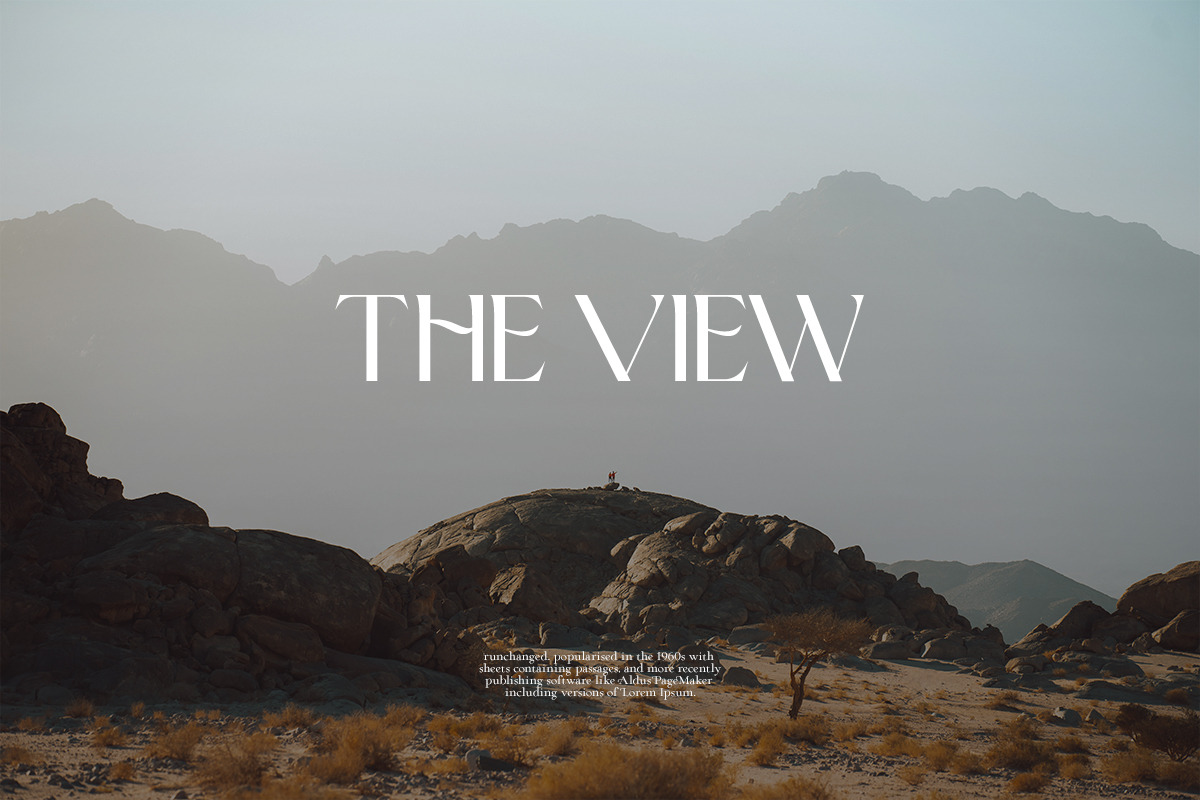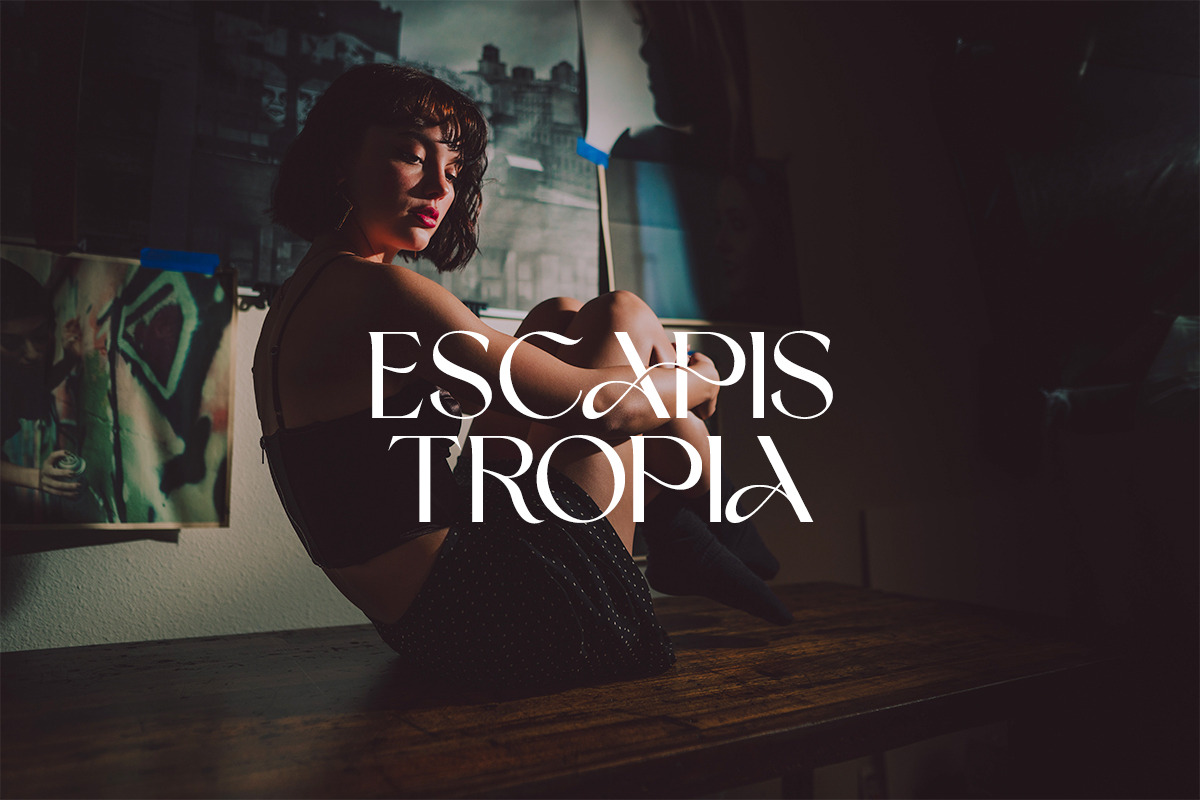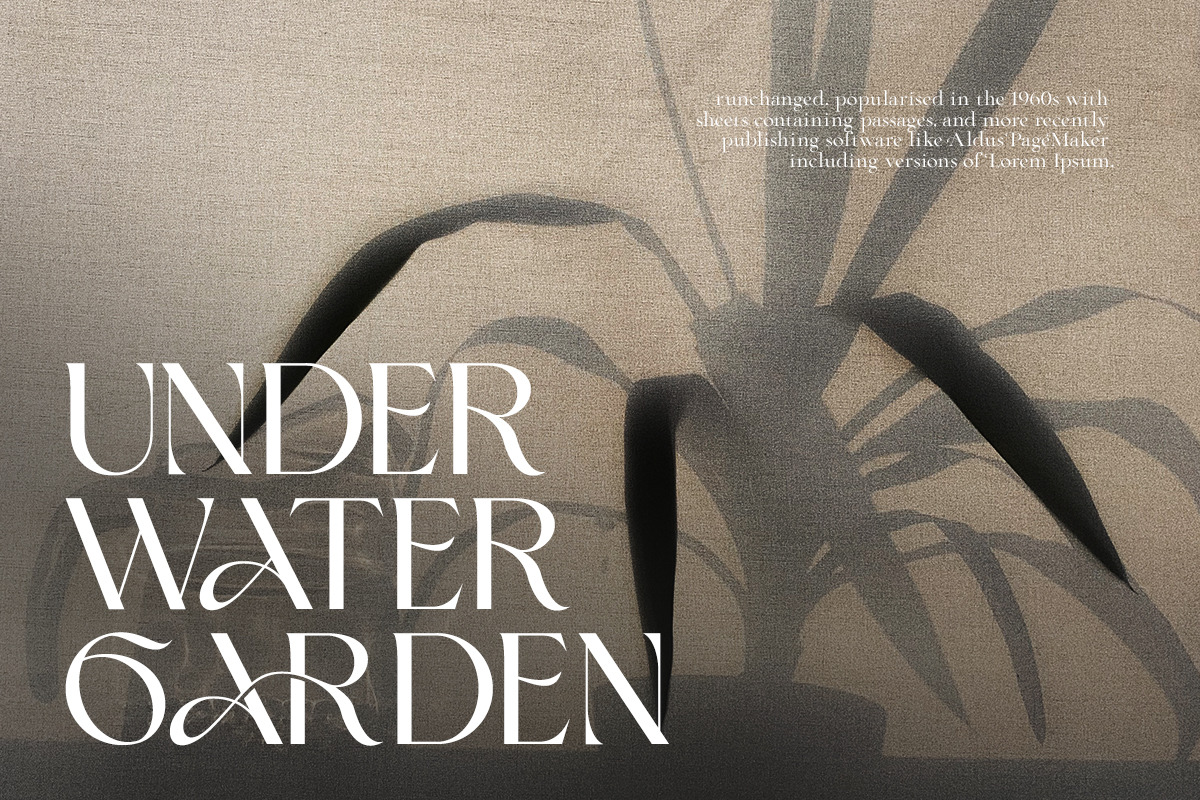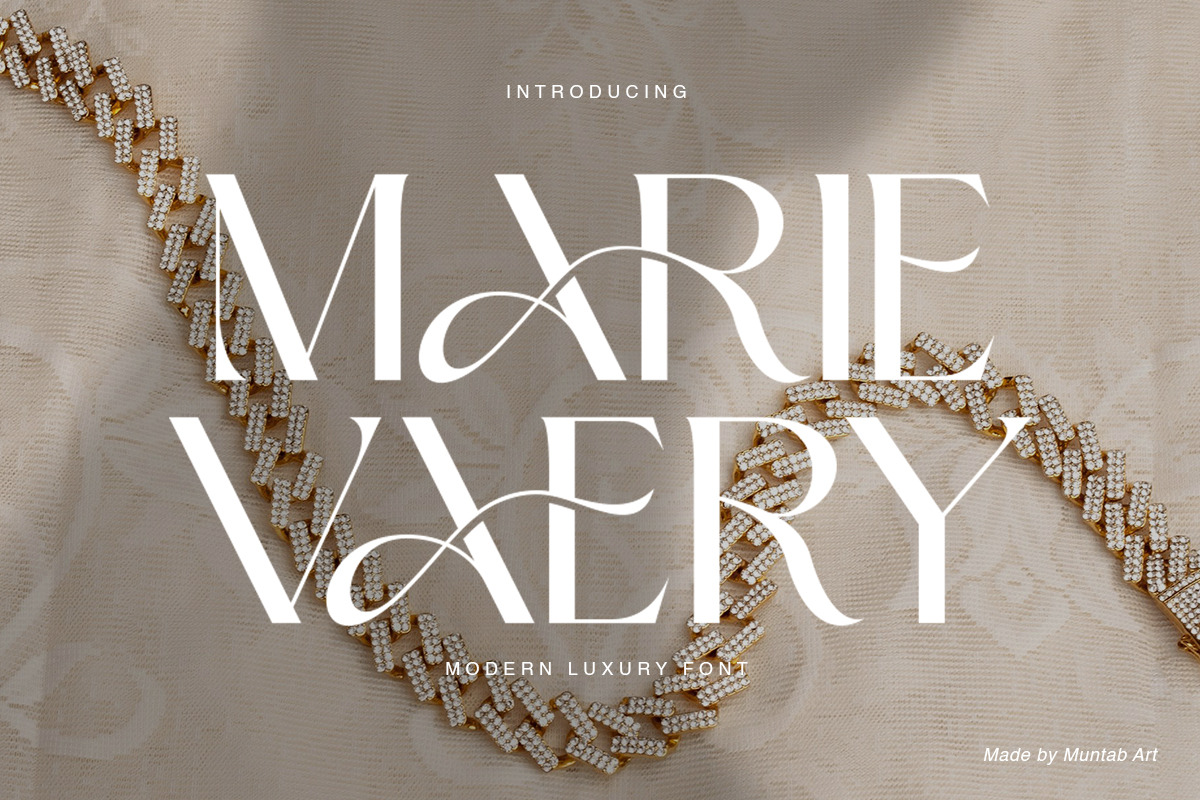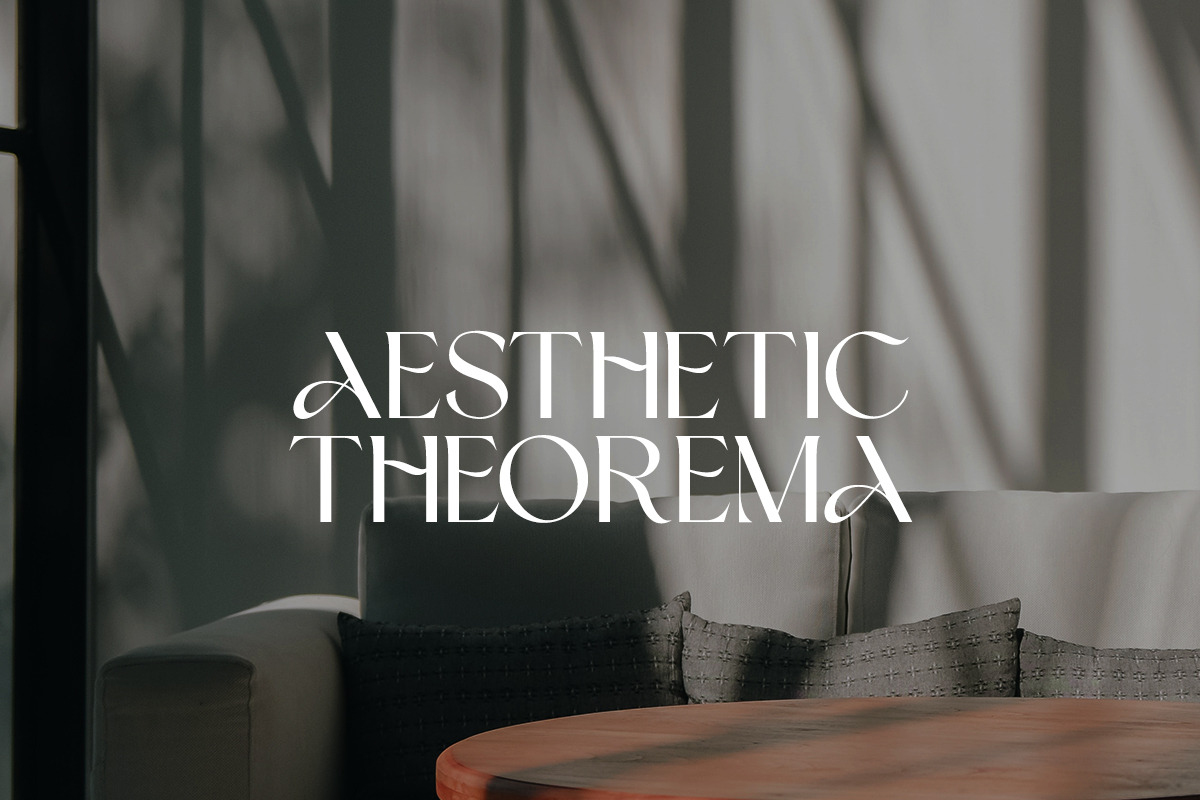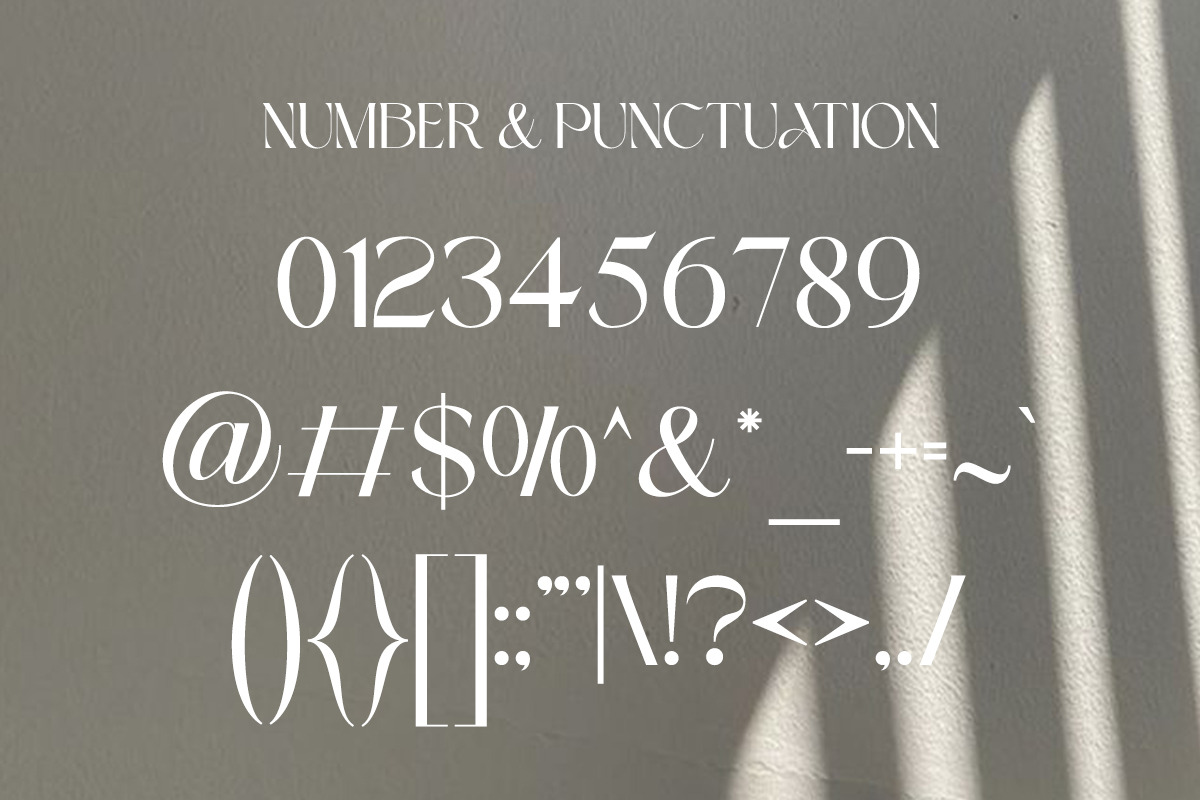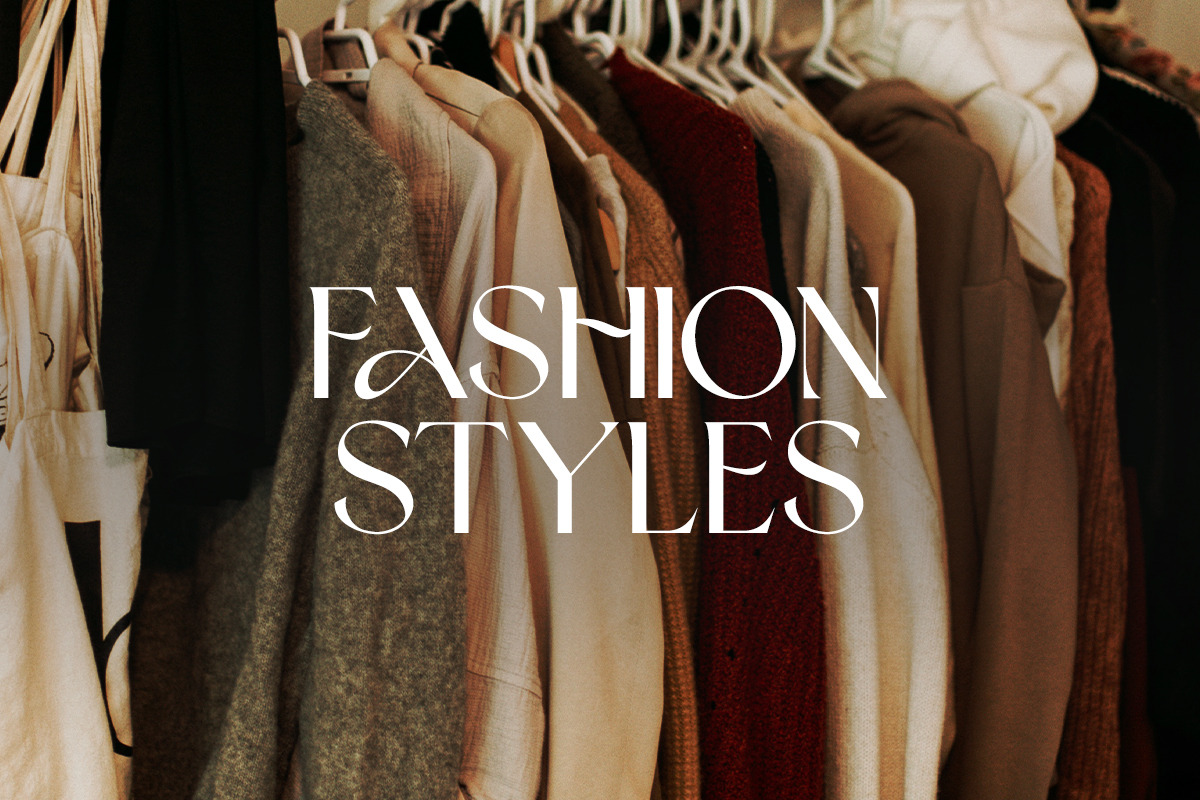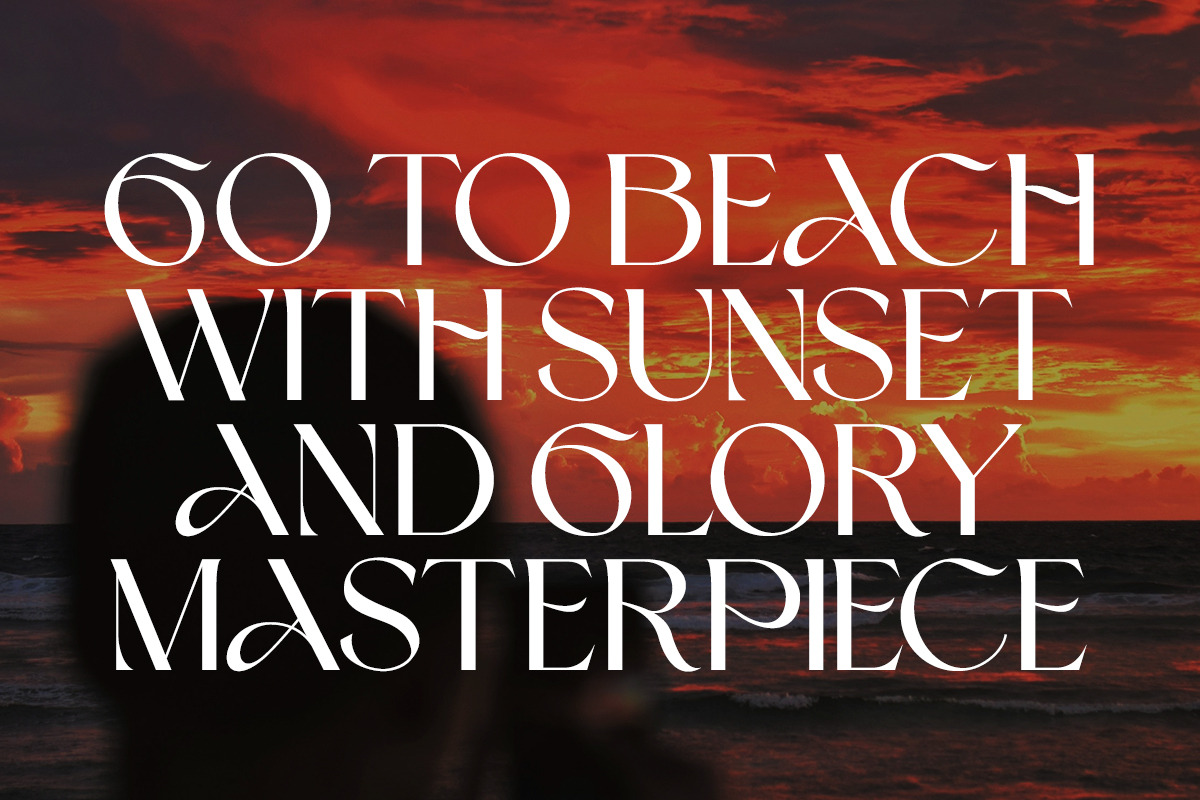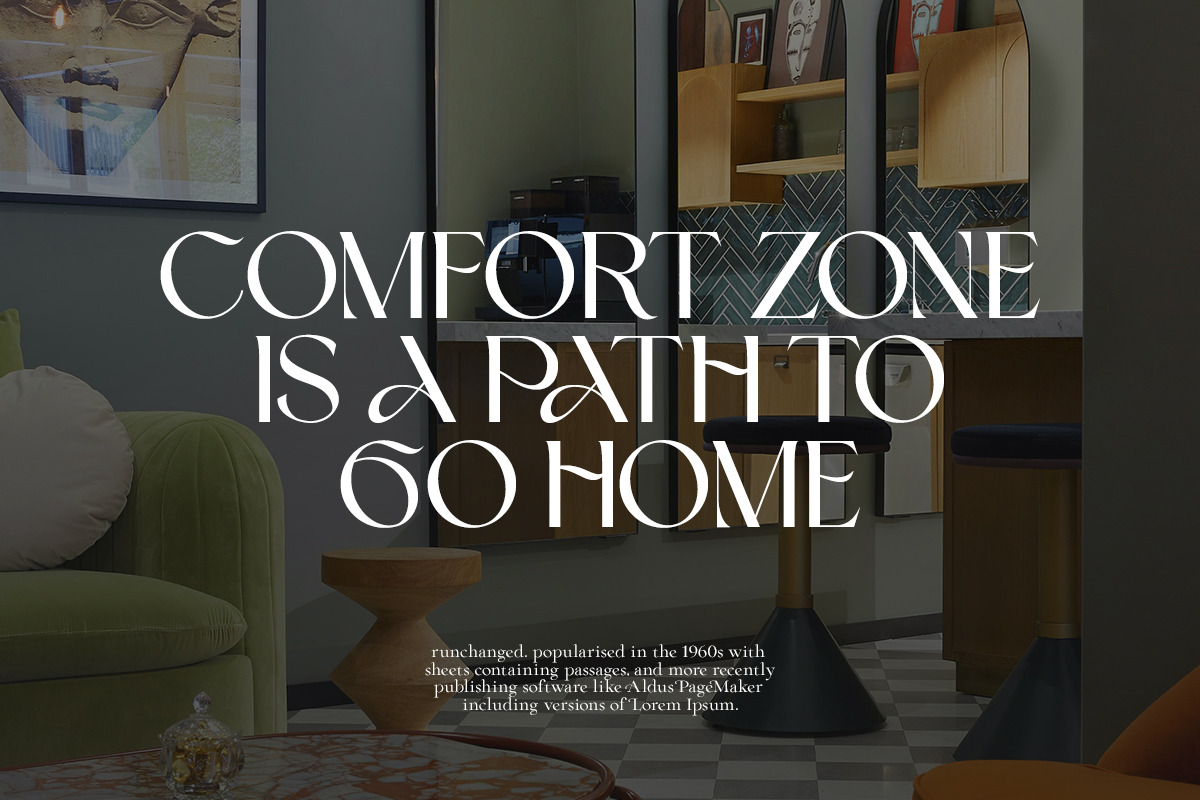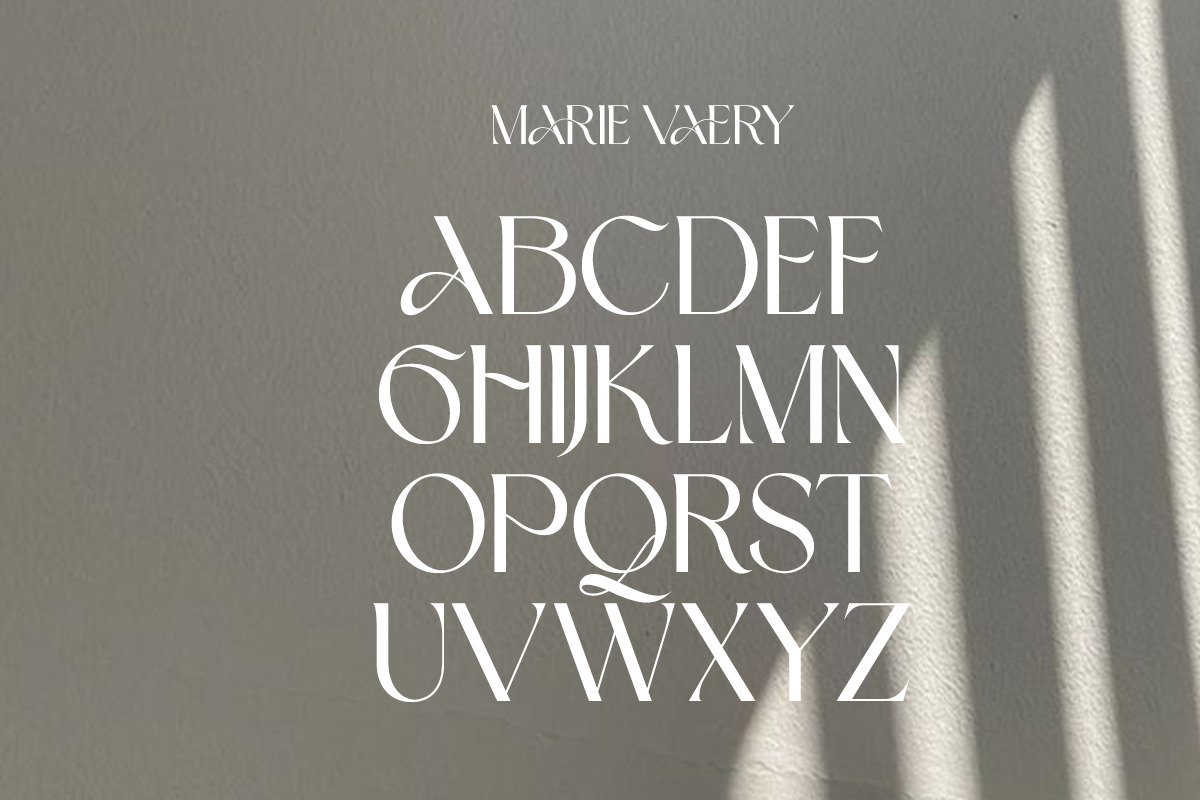
Marie Vaery Luxury Font
Marie Vaery fonts includes uppercase letters, numerals, a large range of punctuation. Serif font with modern luxury style include ligatures. Created for poster, web design, branding, illustrations, badges and some other works.